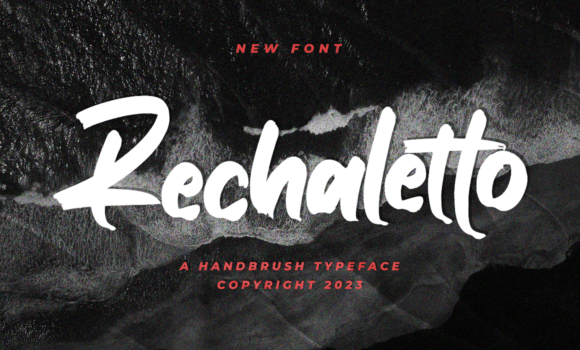
rechaletto
Rechaletto Font - Featured Image
Rechaletto Font – Free Download Introduction to Rechaletto Font Rechaletto is a brushed script font featuring charming, playful characters that seem to dance along the baseline. 📸 Preview Gallery 6 images 📌 Product Name Rechaletto Font 👤 Author RockboyStudio 📂